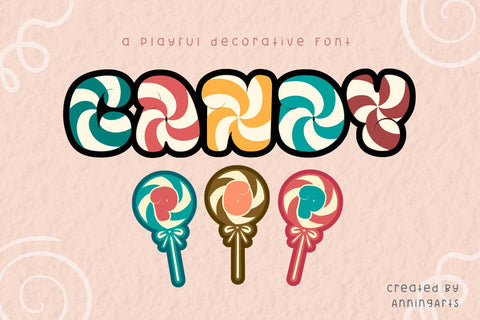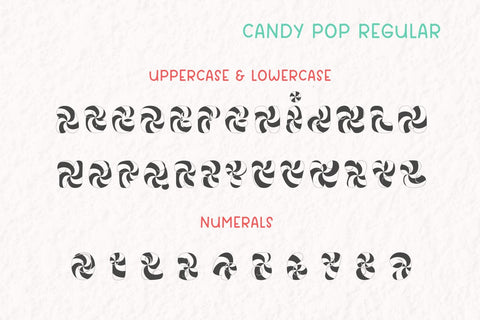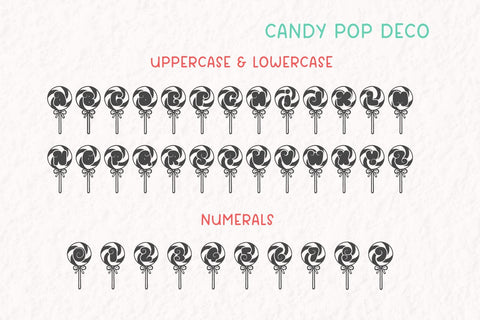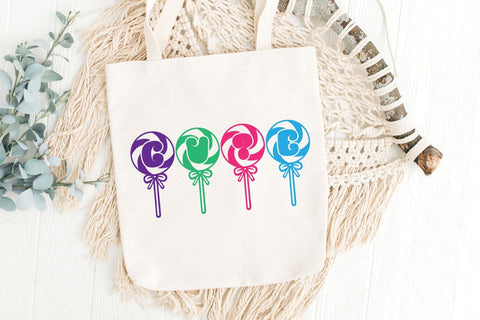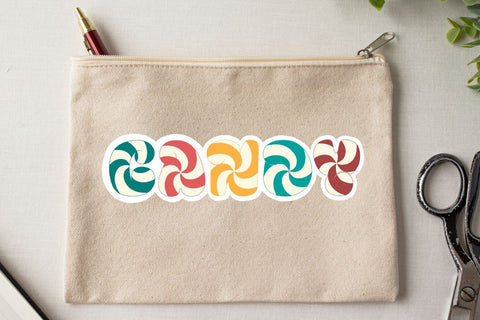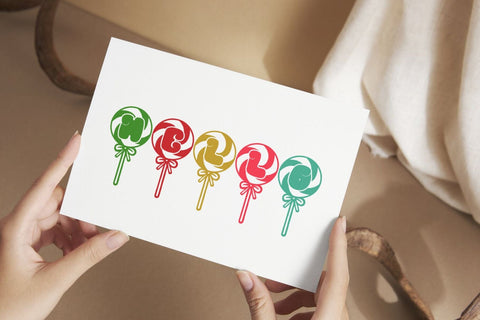
Candy Pop - Font Duo
Candy Pop is a playful decorative font duo that features a delightful combination of bold, swirly designs mimicking the look of candy and lollipops. The font exudes a fun and cheerful vibe, making it perfect for creative projects requiring sweetness and whimsy. Candy Pop adds a lively and joyful character to any design with its vibrant colors and charming, candy-inspired shapes.